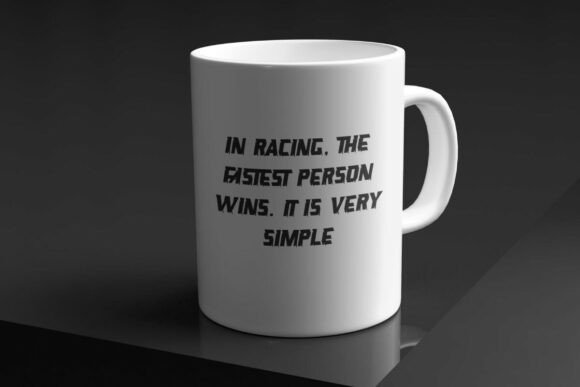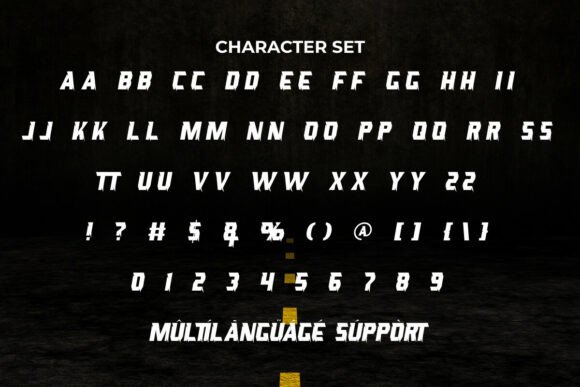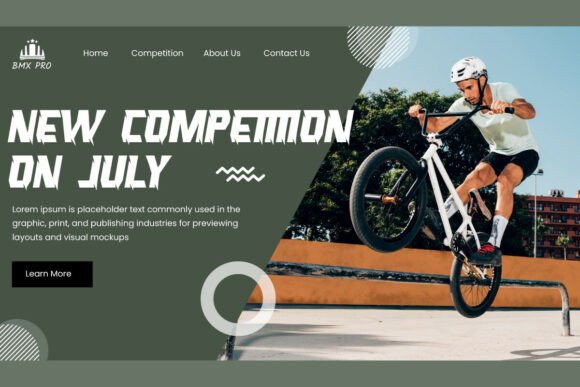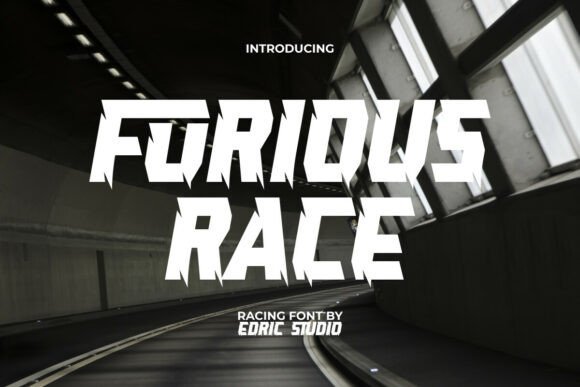
Introduction to Furious Race Font
Unleash a surge of adrenaline in your designs with the Furious Race Display Font, a bold, high-impact typeface designed to convey speed, power, and raw energy.
This powerful, aggressive display font features sharp, angular cuts and an incredibly broad stance, immediately capturing the intensity of racing and extreme sports Every letter in the Furious Race typeface is crafted to look dynamic and fast, making it the perfect choice for titling that needs to stand out and create an immediate visual punch.
Key Features of Furious Race Font
Why Choose Furious Race Font?